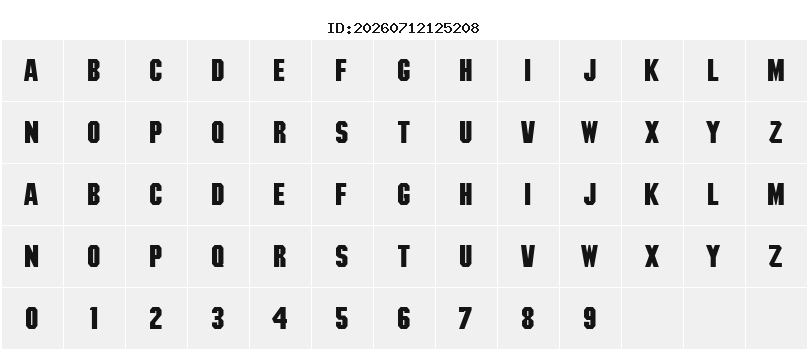
Machined Preview
• Font Name: Machined
• Full Font Name: Machined Bold
About Machined.ttf
Machined.ttf is a modern, elegant sans-serif font designed for ultimate readability and visual harmony. Perfect for branding, headlines, web design, and print materials.